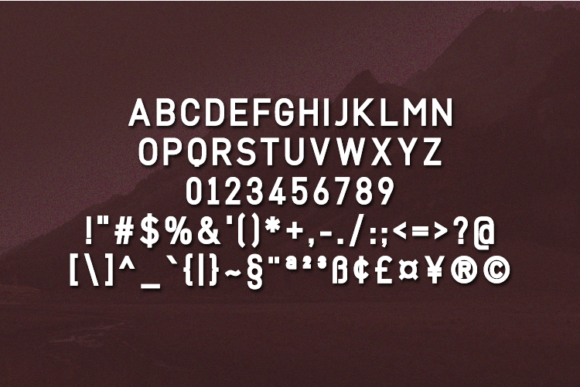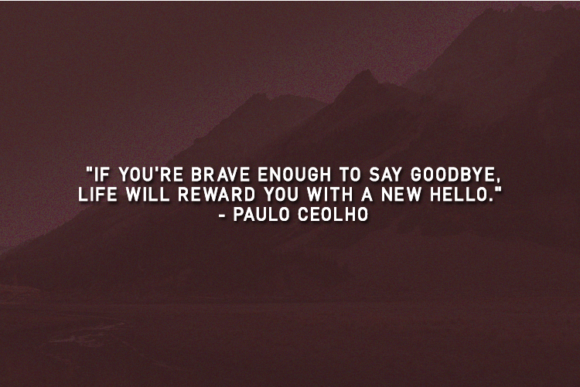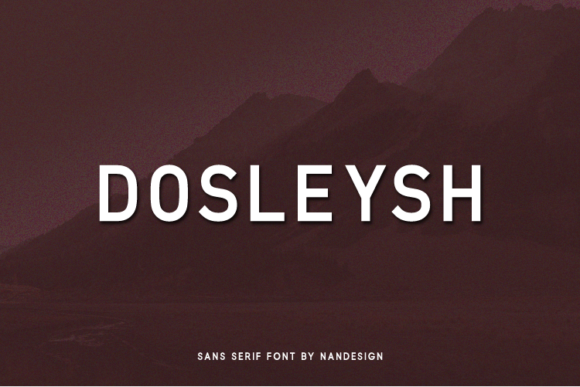
Discover the Elegance of Dosleysh Font: A Versatile Sans Serif for Modern Design
In the realm of typography, the right font can elevate a design from ordinary to extraordinary. For designers and crafters seeking a clean, slim, and simple sans serif font, Dosleysh Font stands out as an exceptional choice. This versatile typeface is perfect for a wide range of applications, including product packaging, branding projects, magazine covers, social media graphics, wedding designs, and more. In this article, we’ll delve into the characteristics of Dosleysh Font and explore how it can enhance your creative projects.
Clean, Slim, and Simple: The Characteristics of Dosleysh Font
Dosleysh Font is distinguished by its minimalist aesthetic, characterized by clean lines, slender strokes, and a straightforward sans serif design. This simplicity makes it incredibly versatile, allowing it to adapt seamlessly to various design contexts. The font’s uncluttered appearance ensures that it can be used in a multitude of applications without overwhelming the accompanying visuals or text.
Versatility at Its Best: Use Cases for Dosleysh Font
One of the key advantages of Dosleysh Font is its versatility. Here are some of the many ways you can utilize this elegant typeface:
- Product Packaging: Dosleysh Font can add a touch of sophistication to product packaging, making your brand stand out on store shelves. Its clean and simple design ensures that it complements the product without overpowering it.
- Branding Projects: Establish a strong brand identity with Dosleysh Font. Its slim and modern appearance makes it ideal for logos, business cards, and other branding materials.
- Magazine Covers: Capture the attention of readers with a striking magazine cover featuring Dosleysh Font. Its elegant design can add a professional touch to any publication.
- Social Media Graphics: Enhance your social media presence with eye-catching graphics that incorporate Dosleysh Font. Its simplicity and readability make it perfect for digital content.
- Wedding Designs: Add a touch of elegance to your wedding stationery, invitations, and decor with Dosleysh Font. Its clean and sophisticated look is sure to impress.
Why Choose Dosleysh Font?
Dosleysh Font offers several benefits that make it an attractive choice for designers and crafters:
- Readability: The font’s clear and simple design ensures excellent readability, even at smaller sizes.
- Flexibility: Dosleysh Font can be used in both digital and print applications, making it a versatile addition to your font library.
- Elegance: The slim and clean appearance of Dosleysh Font adds a touch of elegance to any design, making it suitable for projects that require a sophisticated look.
Tips for Using Dosleysh Font Effectively
To get the most out of Dosleysh Font, consider the following tips:
- Pair with Images: Combine Dosleysh Font with high-quality images to create visually appealing designs.
- Experiment with Colors: Don’t be afraid to try different color schemes to find the perfect match for your design.
- Play with Sizes: Utilize varying font sizes to create visual hierarchy and emphasize key information.
Dosleysh Font is a versatile and elegant sans serif font that can elevate your designs to new heights. Its clean, slim, and simple design makes it perfect for a wide range of applications, from product packaging and branding projects to magazine covers and social media graphics. By incorporating Dosleysh Font into your creative projects, you can add a touch of sophistication and professionalism that will leave a lasting impression on your audience.
Whether you’re a designer or crafter, Dosleysh Font is an excellent addition to your toolkit. Its flexibility, readability, and elegance make it an ideal choice for anyone looking to create visually stunning designs. So why wait? Discover the power of Dosleysh Font and take your designs to the next level.